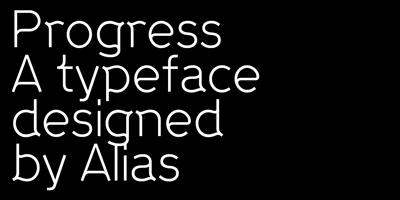
Progress Two Font
Progress Two Font is perfect for forward-thinking business branding, progressive technology interfaces, advancement-focused marketing campaigns, evolutionary product design, development project presentations, growth-oriented communications, innovative startup identity, progressive social initiatives, transformational educational materials, and advancement-driven applications. This dynamic typeface creates authentic progression atmosphere in both developmental print and digital innovation platforms.
What makes Progress Two Font exciting is its evolutionary design that perfectly captures the essence of continuous advancement with forward-momentum aesthetics and progressive sophistication. The font features advancing letterforms with developmental proportions and progressive character details that evoke technological evolution, continuous improvement, and forward-thinking innovation. Its dynamic design establishes an atmosphere of positive transformation and advancement leadership that resonates with progressive audiences seeking authentic growth and evolutionary excellence.
Progress Two Font family includes evolutionary variations: Light, Regular, Medium, Bold, and Advanced versions, each with progressive alternates and development character sets. Each variant maintains the font's advancement personality while providing designers with forward-thinking options for creating progressive typography systems and evolutionary communication materials.
This exceptional progressive typeface brings authentic development credibility to projects requiring advancement presentation. Whether you're designing growth-focused brands, progressive technology, or evolutionary marketing materials, Progress Two Font delivers outstanding momentum and progressive sophistication. The font's developmental proportions and advancement details ensure memorable forward-thinking connection across various progressive applications.
Innovation companies and progressive organizations recognize how Progress Two Font perfectly embodies the principles of continuous advancement and forward-thinking development. Its evolutionary foundation combined with progressive momentum makes it essential for growth-focused and innovation design projects. Download today and advance your designs with this exceptionally progressive developmental typography.